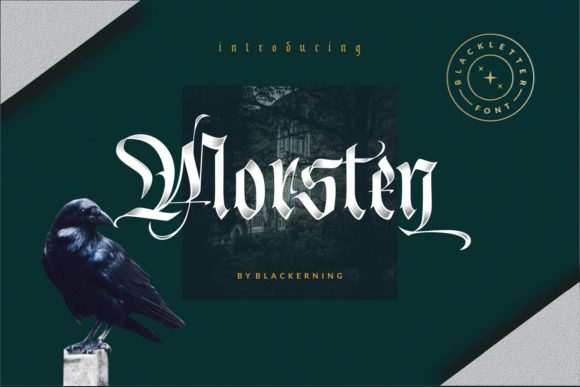
Embark on a typographic odyssey with Morsten Font, a captivating journey into the realm of blackletter artistry. Inspired by centuries-old traditions, this font echoes the grandeur of medieval manuscripts and the boldness of modern headlines.
Unleash the power of Morsten's intricate lines, sharp angles, and striking contrasts. Each glyph is a testament to the enduring legacy of blackletter, carefully crafted to evoke a sense of authenticity and timeless elegance.
Immerse yourself in Morsten's versatility, a font that effortlessly adapts to a myriad of design landscapes. From the commanding presence of news headlines to the regal charm of invitations, Morsten seamlessly blends into your creative vision.
Picture your designs adorned with Morsten's captivating allure. Witness the transformation as your words command attention, resonating with an air of authority and sophistication.
Embrace the boundless possibilities of Morsten, a font that transcends time and trends. Its timeless beauty will add depth and character to your projects, captivating audiences with its unwavering presence.
Join the ranks of design visionaries who have succumbed to Morsten's charm. Let your creativity soar as you explore the endless possibilities it unveils. Experience the thrill of crafting designs that leave an enduring impression, forever etched in the minds of your audience.